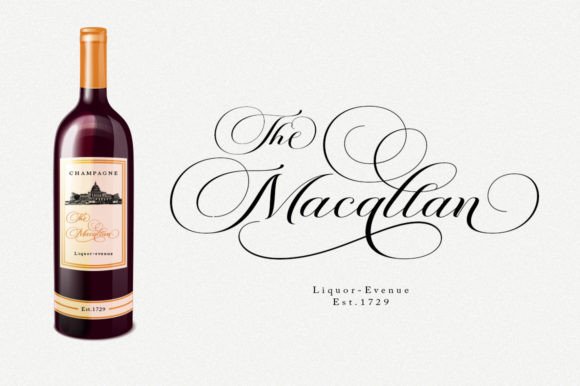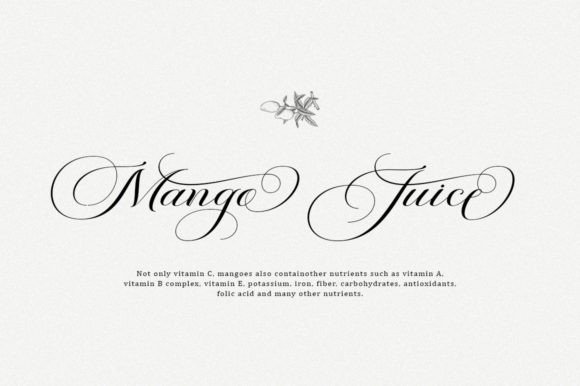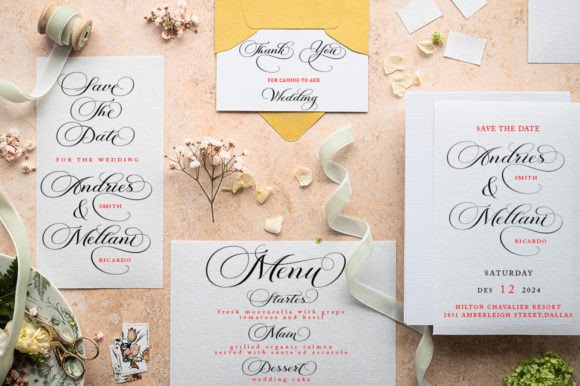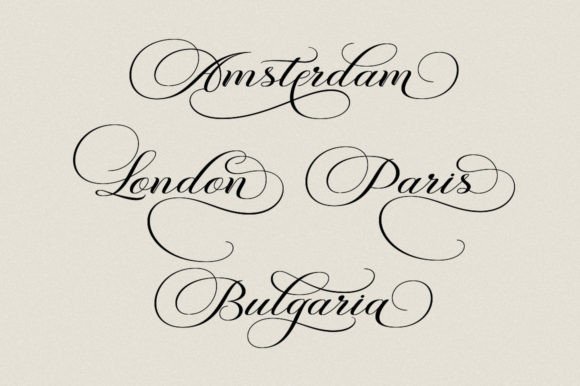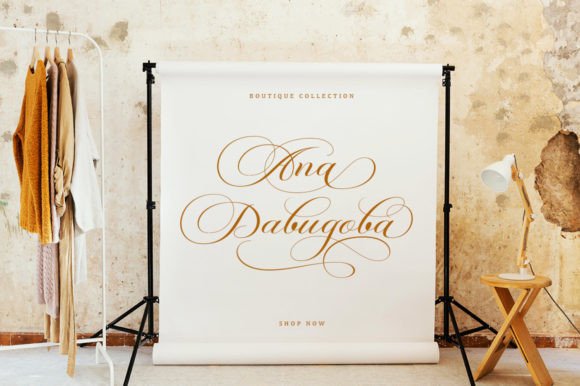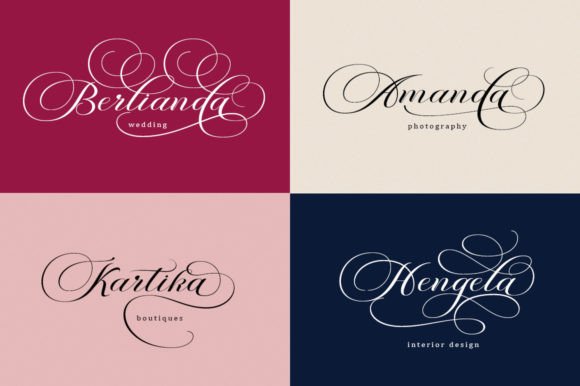
Introduction to Helingston Font
Helingston is a flowing handwritten font, described by an elegant touch, perfect for your favorite projects.
Key Features of Helingston Font
Why Choose Helingston Font?
Helingston Font offers exceptional quality and versatility, making it a valuable addition to your design toolkit. Whether you’re creating for personal projects or commercial use, Helingston Font delivers professional results.